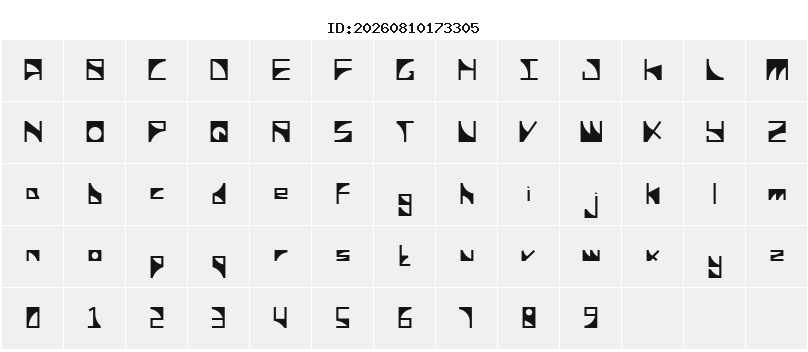
Quarter Preview
• Font Name: Quarter
• Font ID: LuayByazeed: Quarter Bold: 2015
• Full Font Name: Quarter Bold
• PostScript Name: Quarter-Bold
• Designer: Luay Byazeed
• Manufacturer: Luay Byazeed
About Quarter.ttf
Quarter.ttf is a modern, elegant sans-serif font designed for ultimate readability and visual harmony. Perfect for branding, headlines, web design, and print materials.